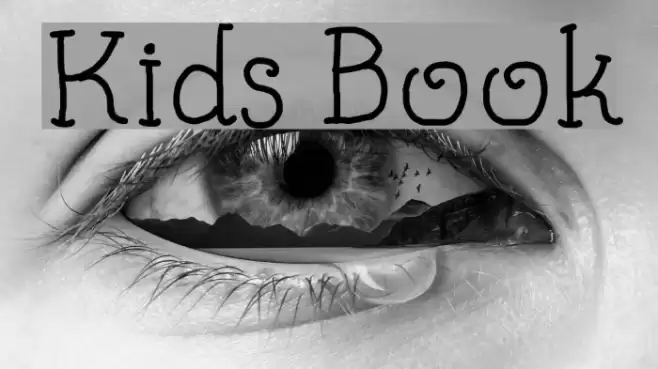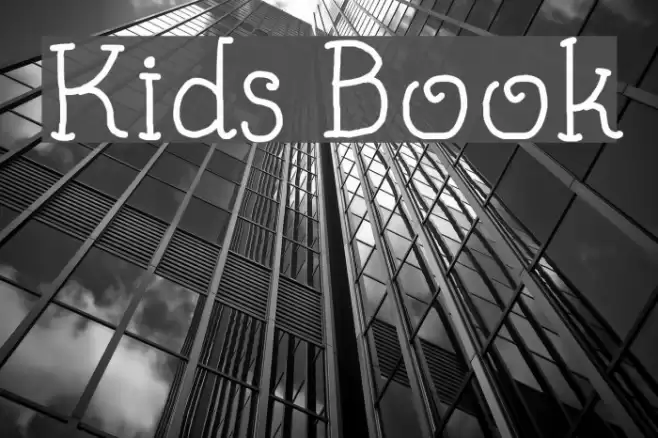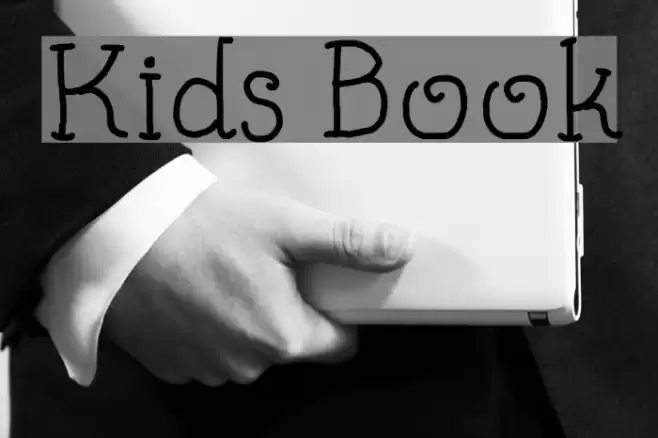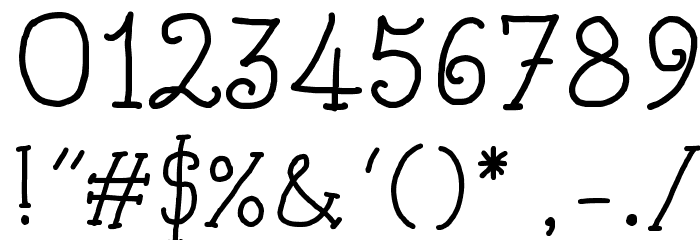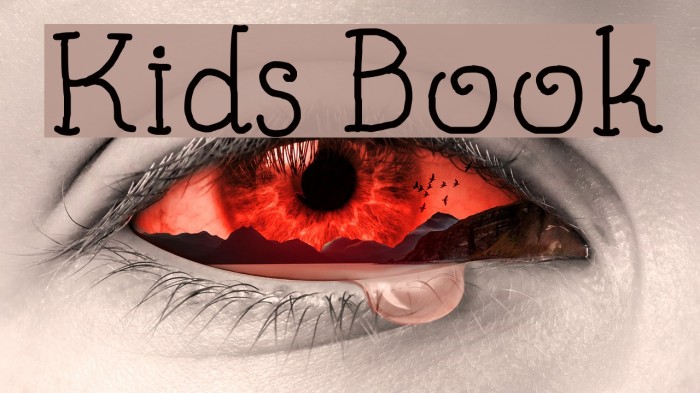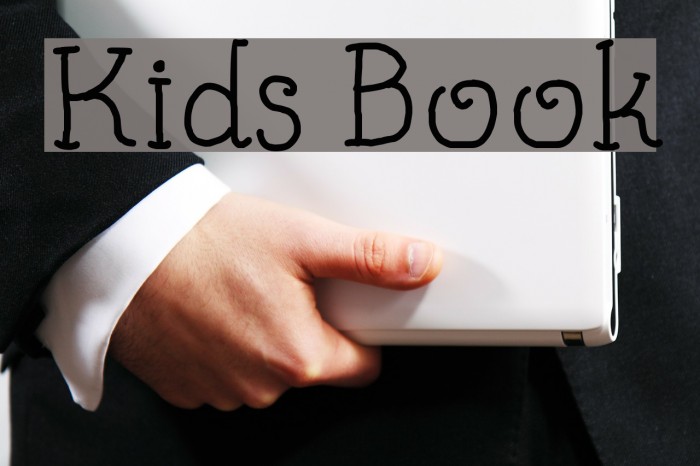
Kids Book Font
Kids Book Description
This playful and whimsical font features a hand-drawn style that is perfect for capturing the imagination of children. The letters have a slightly uneven and quirky appearance, giving them a friendly and approachable feel. The uppercase and lowercase characters maintain a consistent style, with rounded edges and a slight tilt that adds to the playful nature. Numbers and special characters are designed with the same whimsical touch, ensuring a cohesive look across all text. This font is ideal for projects that aim to be fun and engaging, particularly those targeted at a younger audience.
A playful, hand-drawn font with a whimsical and friendly style from Uncategorized fonts.
- Proposed Projects: Children's books, educational materials, playful branding, greeting cards, and posters.
- Overall Style: Playful
- Use Case: Headlines, Children's books, Educational materials